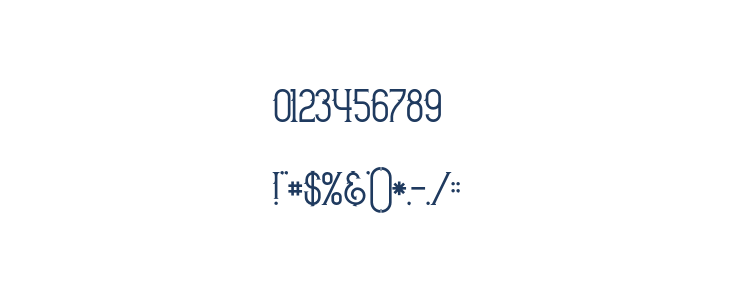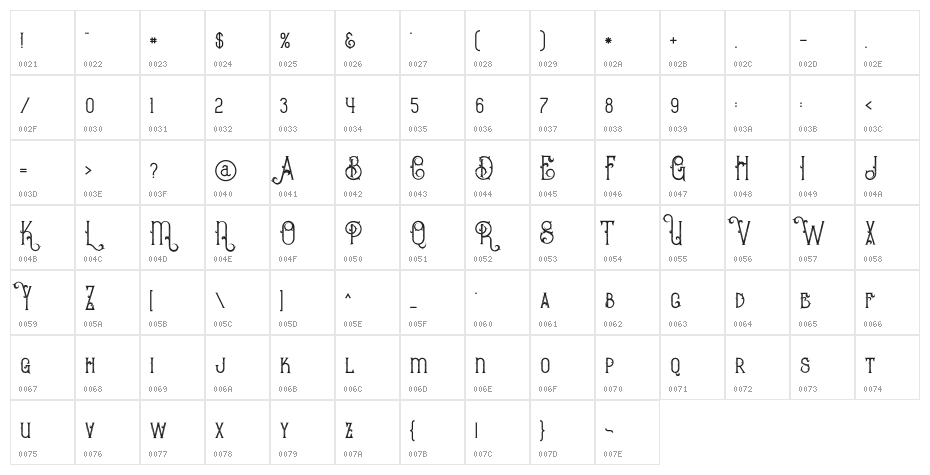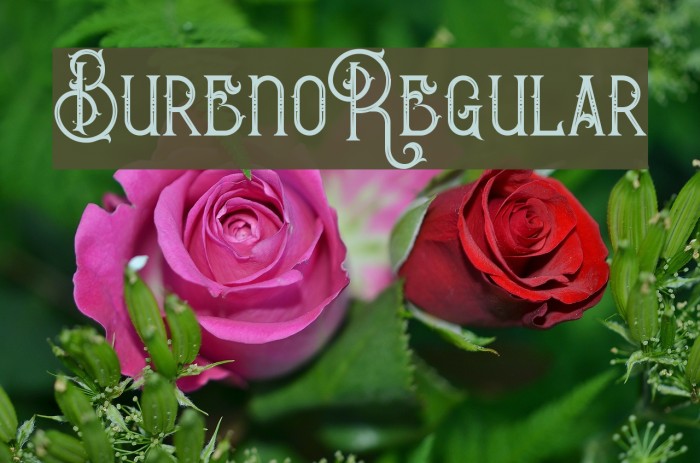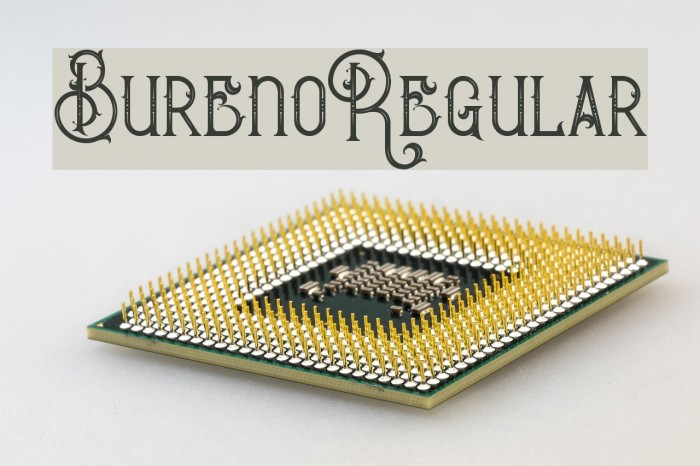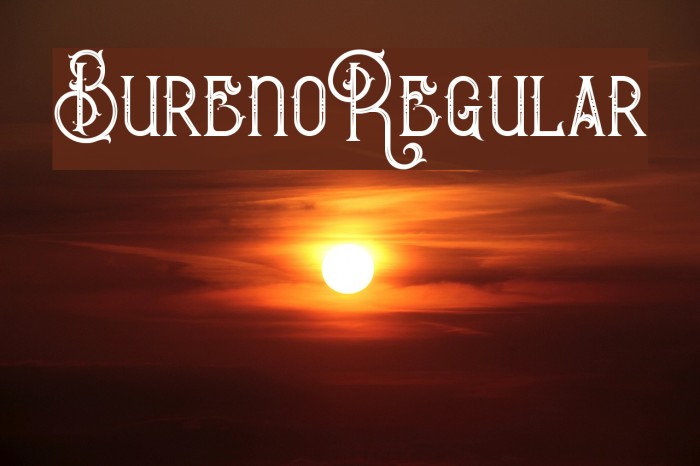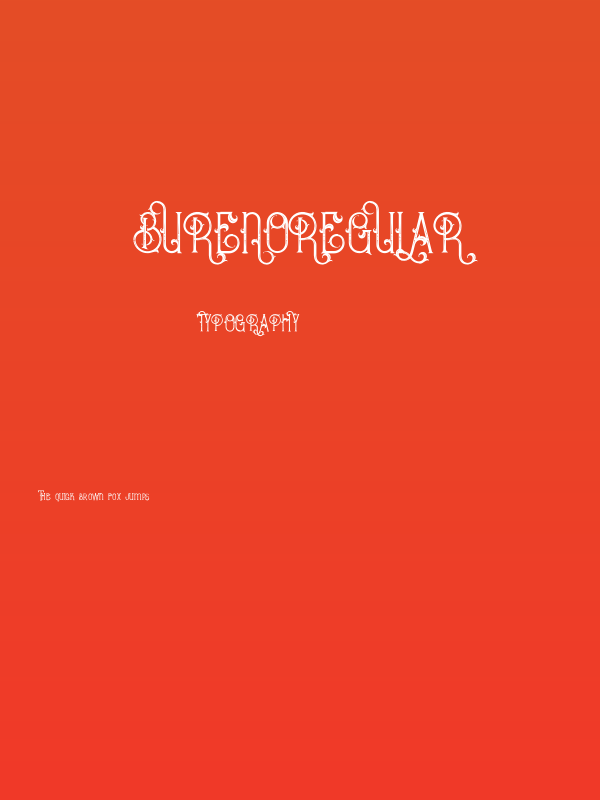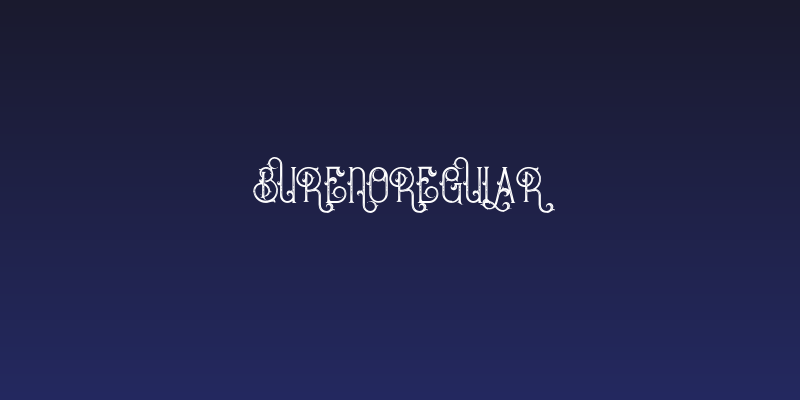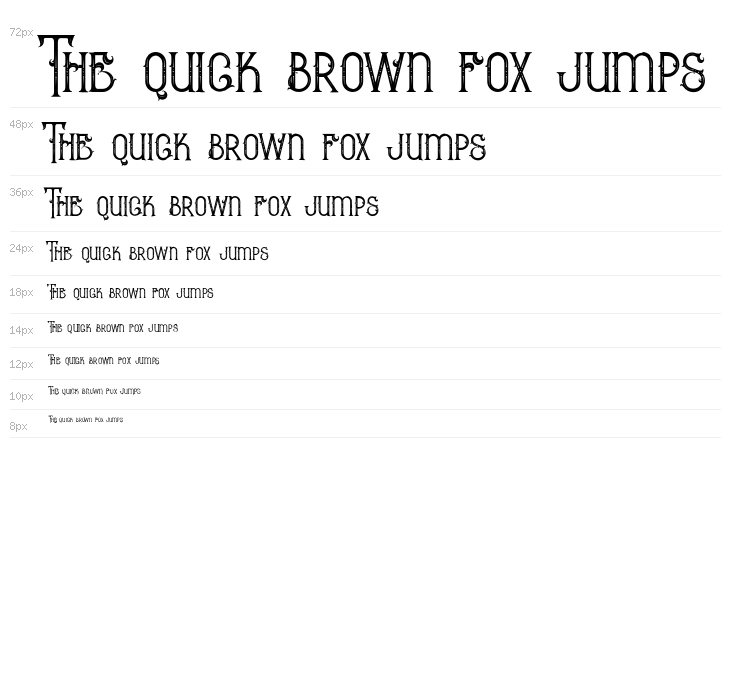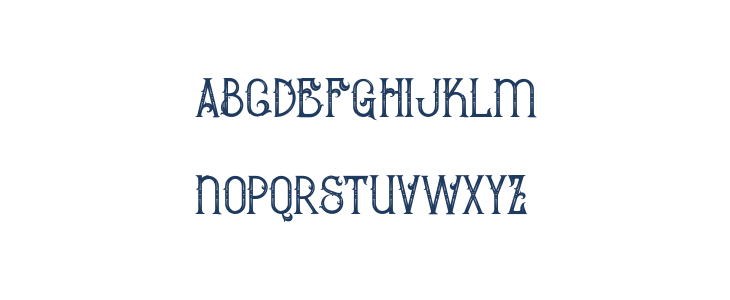
BurenoRegular Font
BurenoRegular Description
This font features an ornate and decorative style, characterized by intricate swirls and embellishments that extend from the main strokes of each letter. The uppercase letters are particularly elaborate, with flourishes that add a sense of elegance and sophistication. The lowercase letters maintain a similar decorative theme but are slightly more subdued, allowing for readability while still retaining the font's unique flair. The numerals and special characters are designed to match the overall aesthetic, with consistent embellishments that unify the entire typeface. This font is ideal for projects that require a touch of vintage charm and artistic expression.
| Overall Style | Vintage, Decorative |
| Proposed Projects | Ideal for wedding invitations, vintage-themed posters, branding for luxury products, and artistic book covers. |